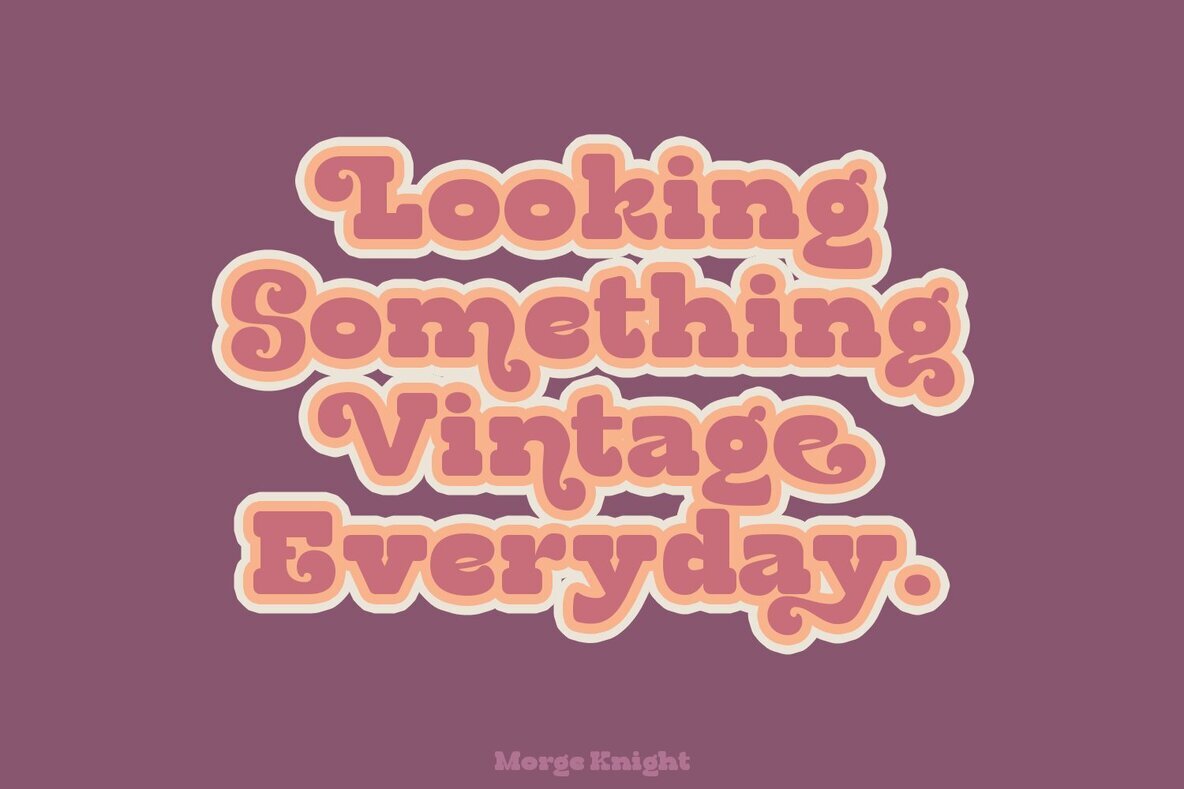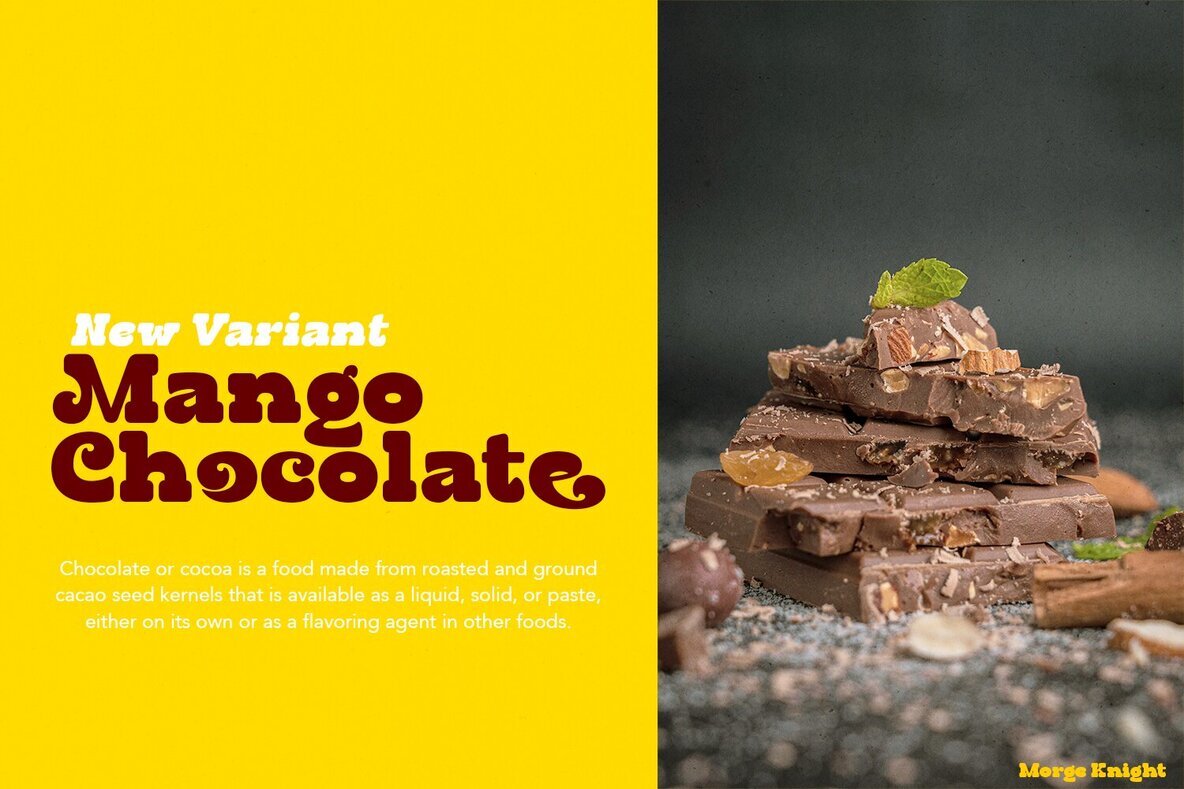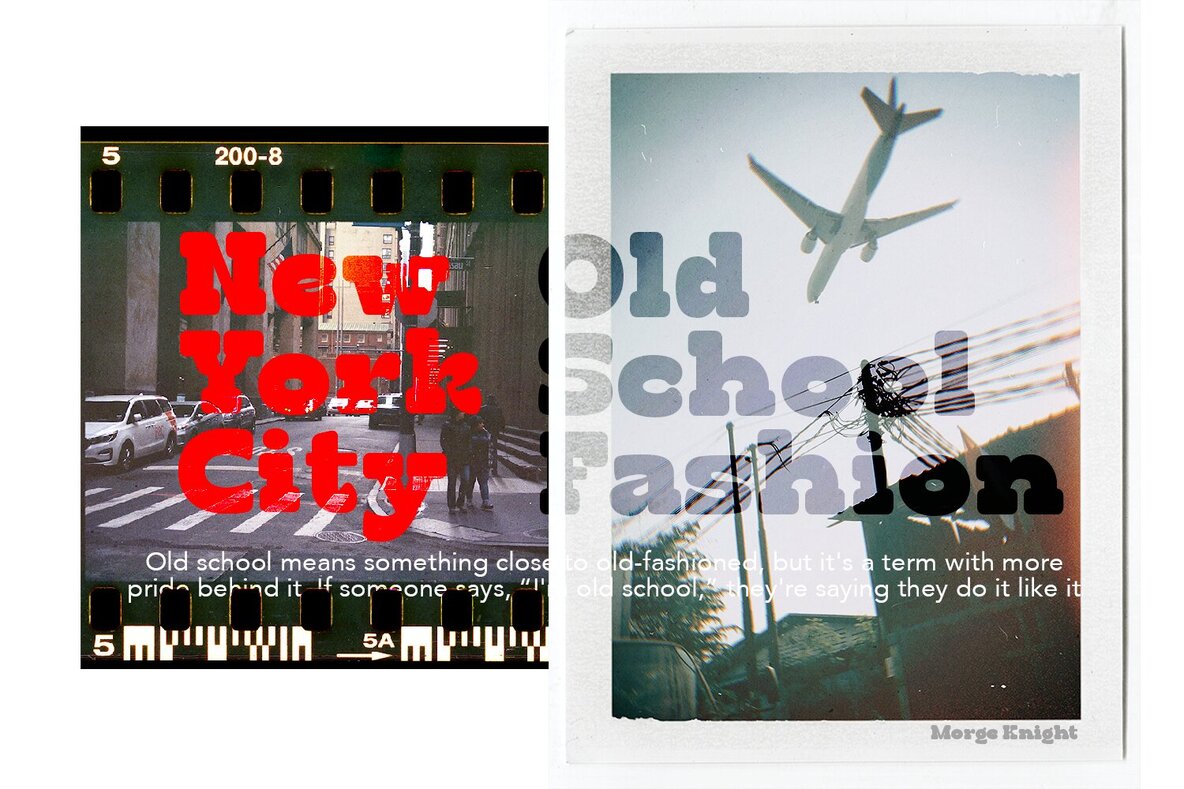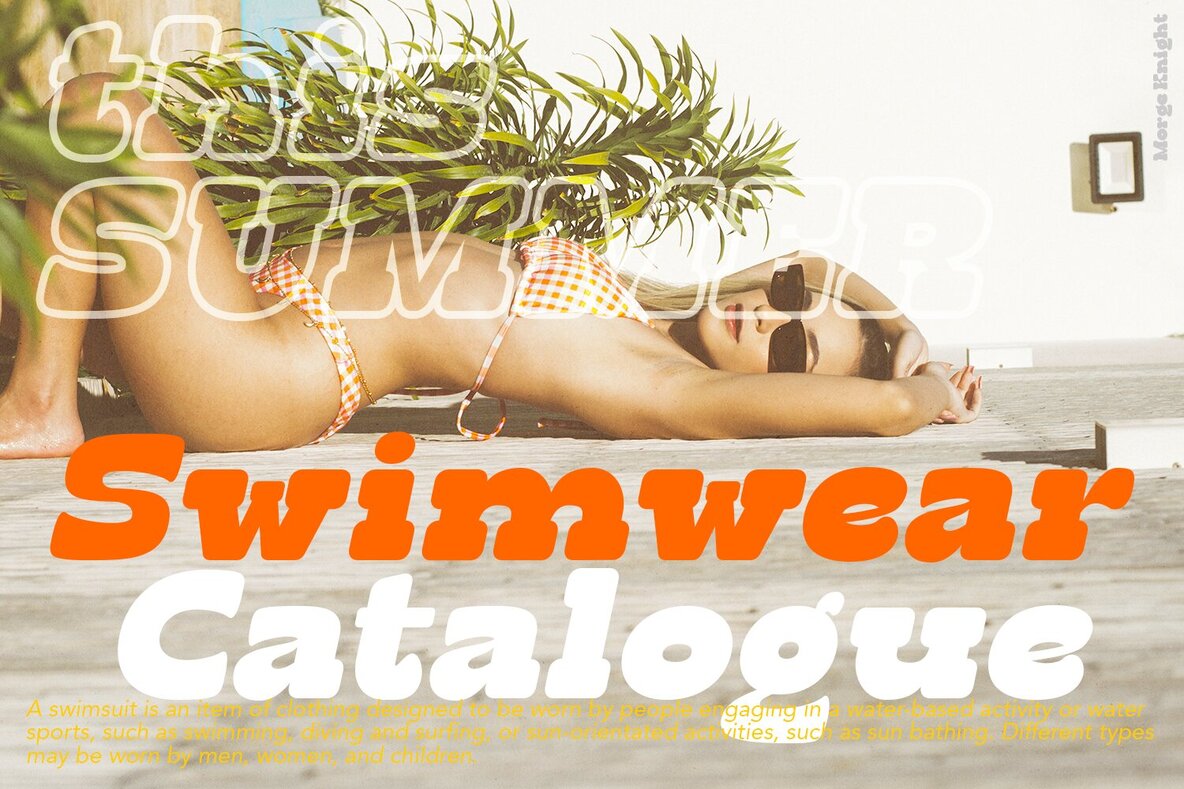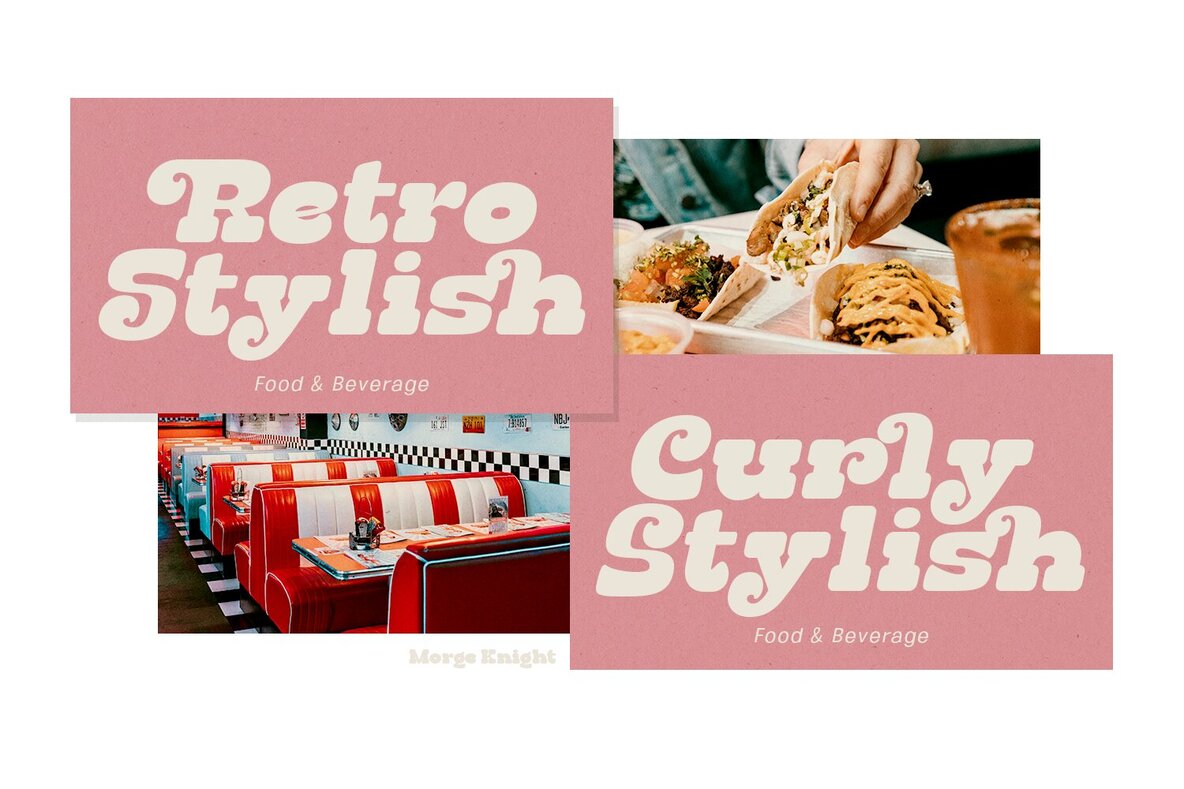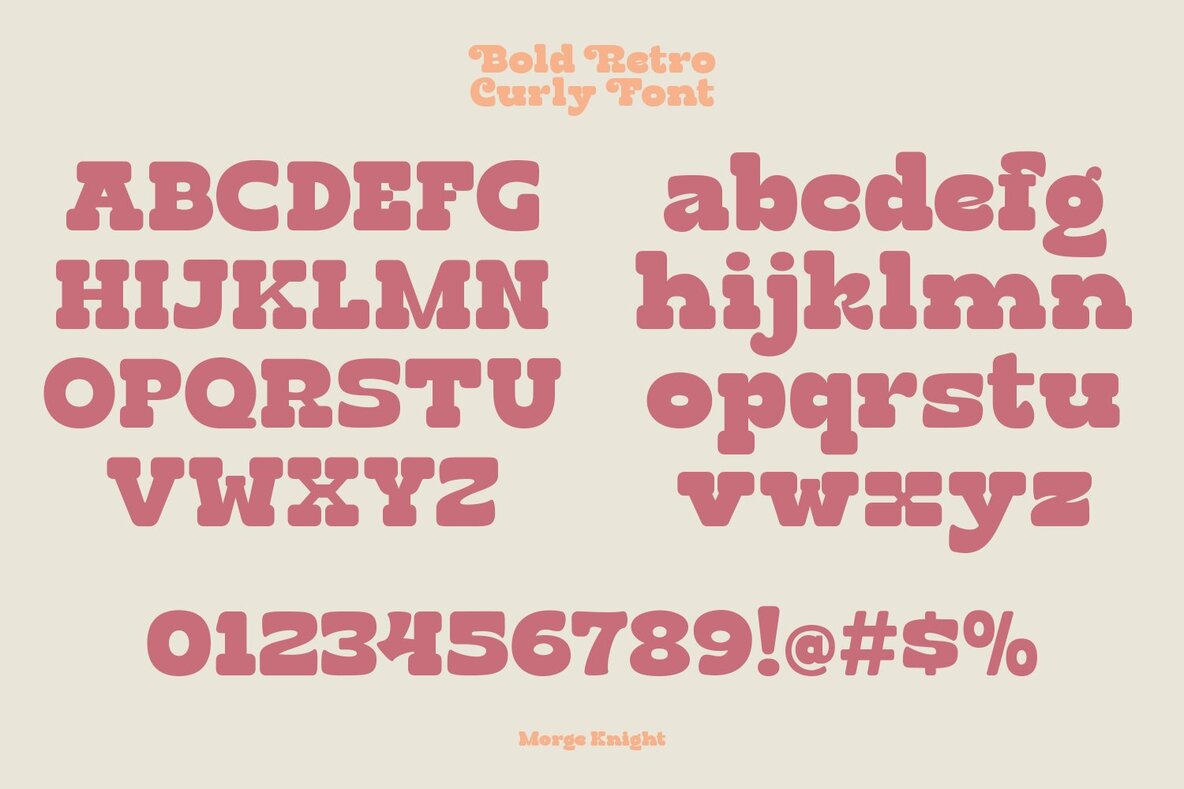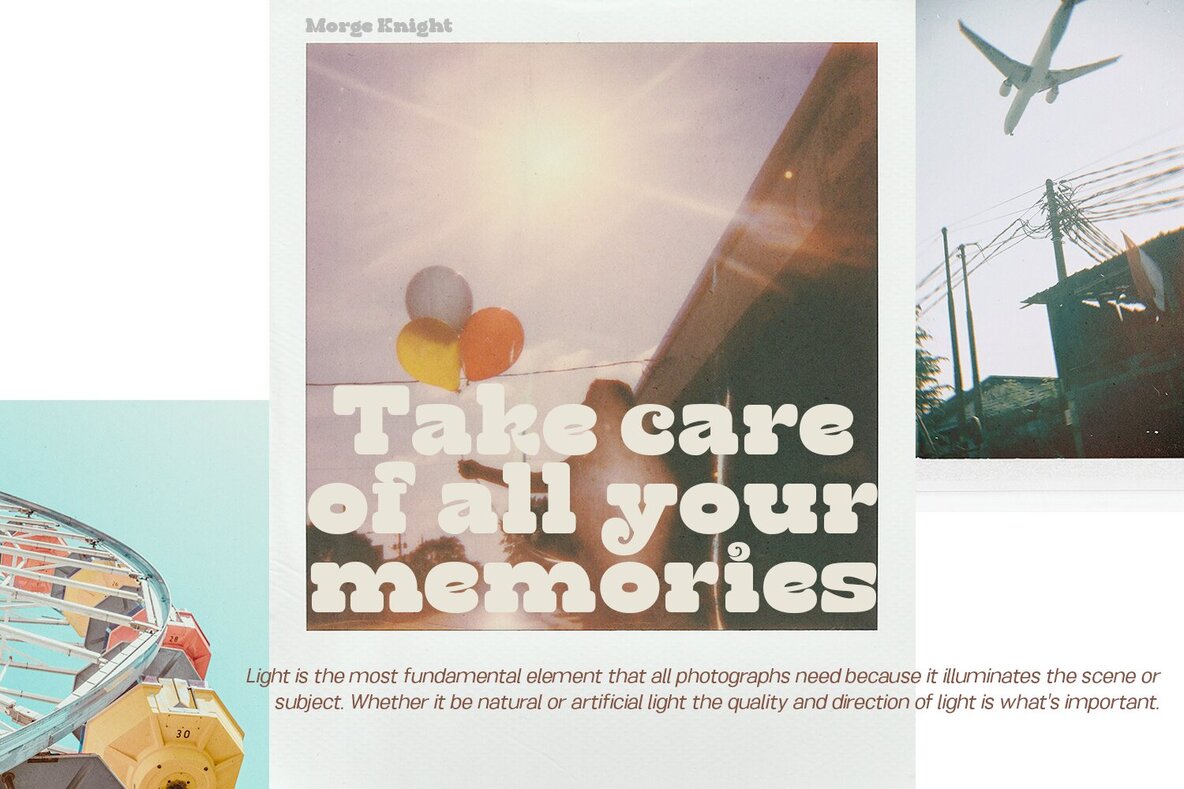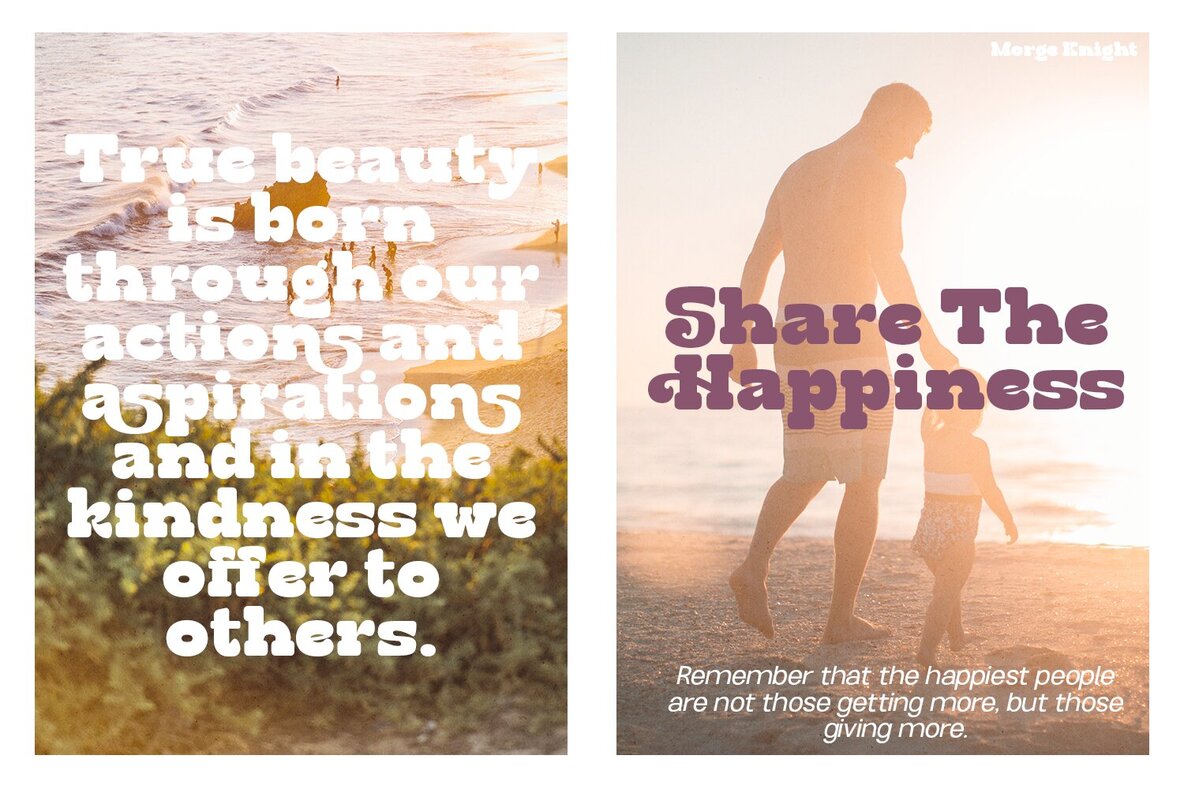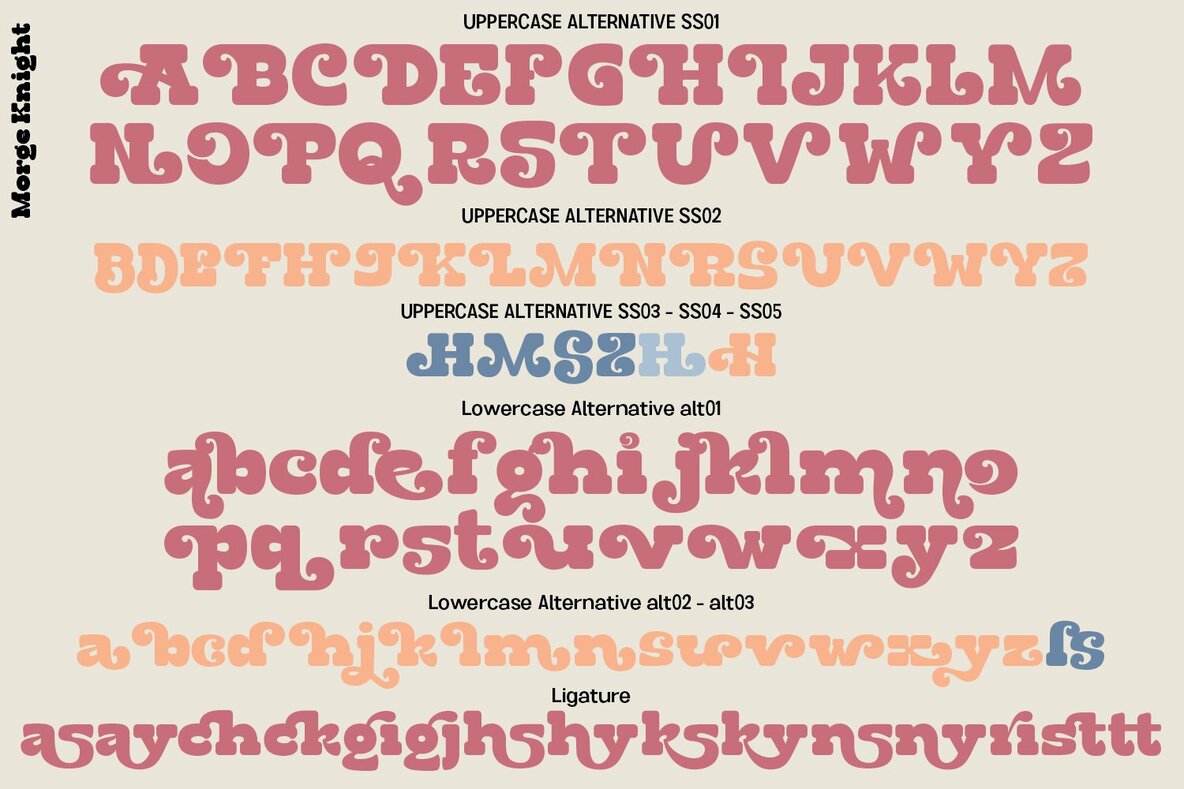
Morge Knight Font
Morge Knight is a retro font inspired by the curly and rounded aesthetics of the old 80's style serif. Designed to create rhythm and ensure comfortable reading, this typeface is perfect for a variety of projects. Its vintage refinement shines through in every application. Utilize Morge Knight for a wide range of creative needs. Its unique style and charm are ideal for:Morge Knight: Retro 80's Style Serif